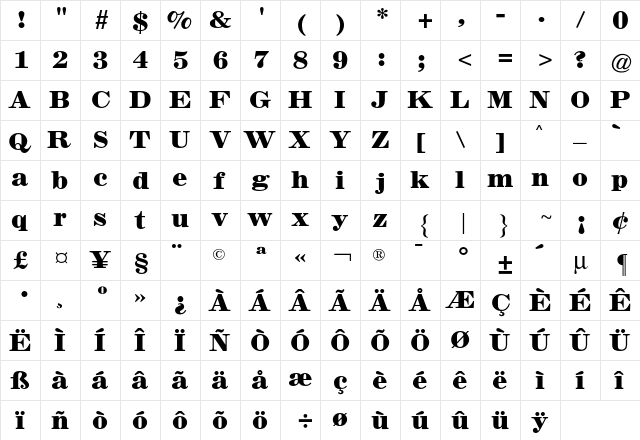
Claire News CG Bold Regular
Design Context for Claire News CG Bold Typeface
Claire News CG Bold takes a measured approach to typography — its balanced proportions and neutral character make it a reliable workhorse for both digital and print work. Its bold stroke weight gives it real presence on the page.